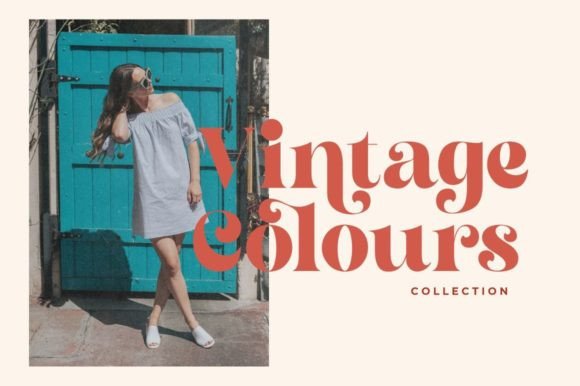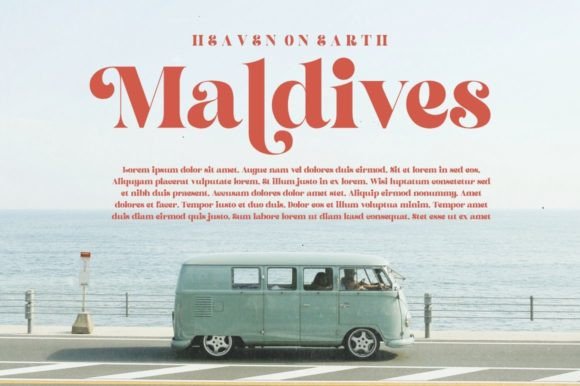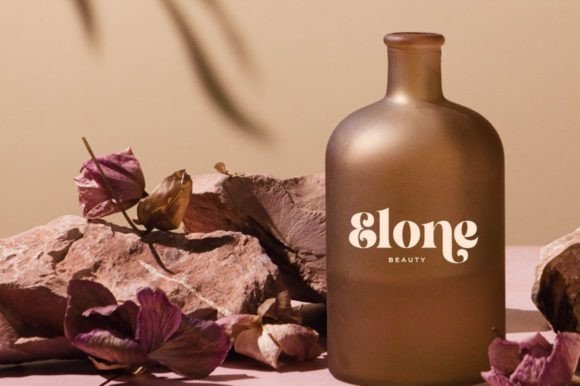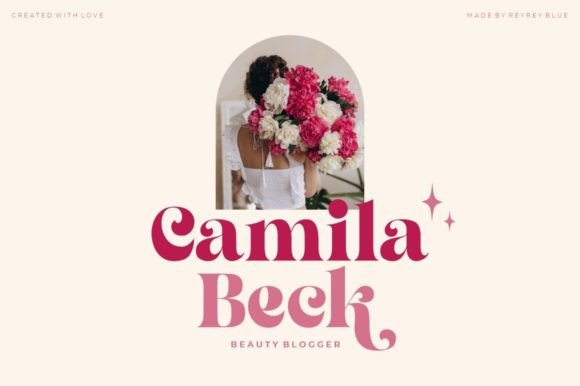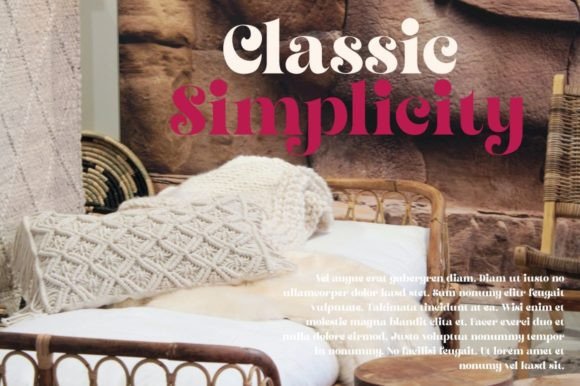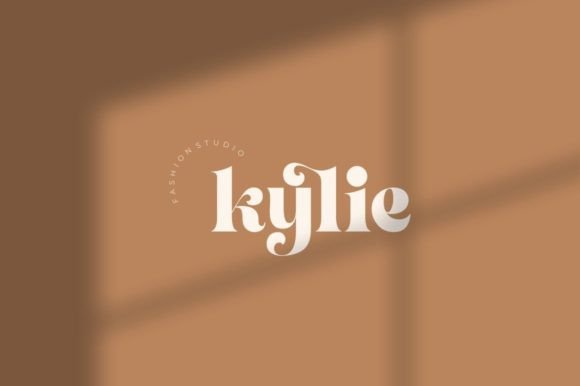
Introduction to Kaylie Diary Font
Introducing, Kaylie Diary.
It is the new serif typeface with a classy, playful, cute, and feminine look It consists of several kinds of alternative variations that can make your design more unique and trendy.